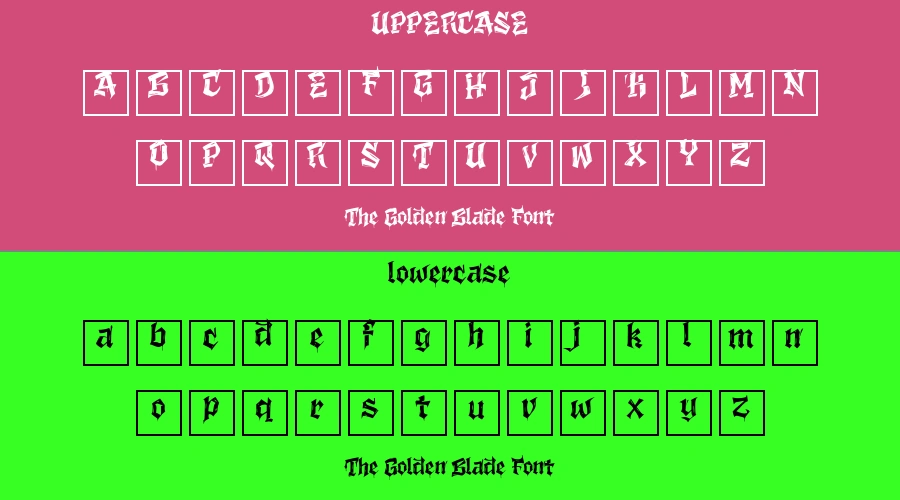
About The Golden Blade Font
The Golden Blade Font embodies typographic excellence through its masterful combination of straight stems and uniqueness. Created for engineering drawings, this typeface delivers exceptional accuracy and application safety across all applications. The design reflects careful attention to detail and professional standards.
Advanced capabilities include distinctive creative flair and versatile traditional styling, giving designers creative control. When used in technical manuals, The Golden Blade Font exhibits remarkable scanning accuracy. The harmonious balance between crossbar height and technical innovation sets this typeface apart.